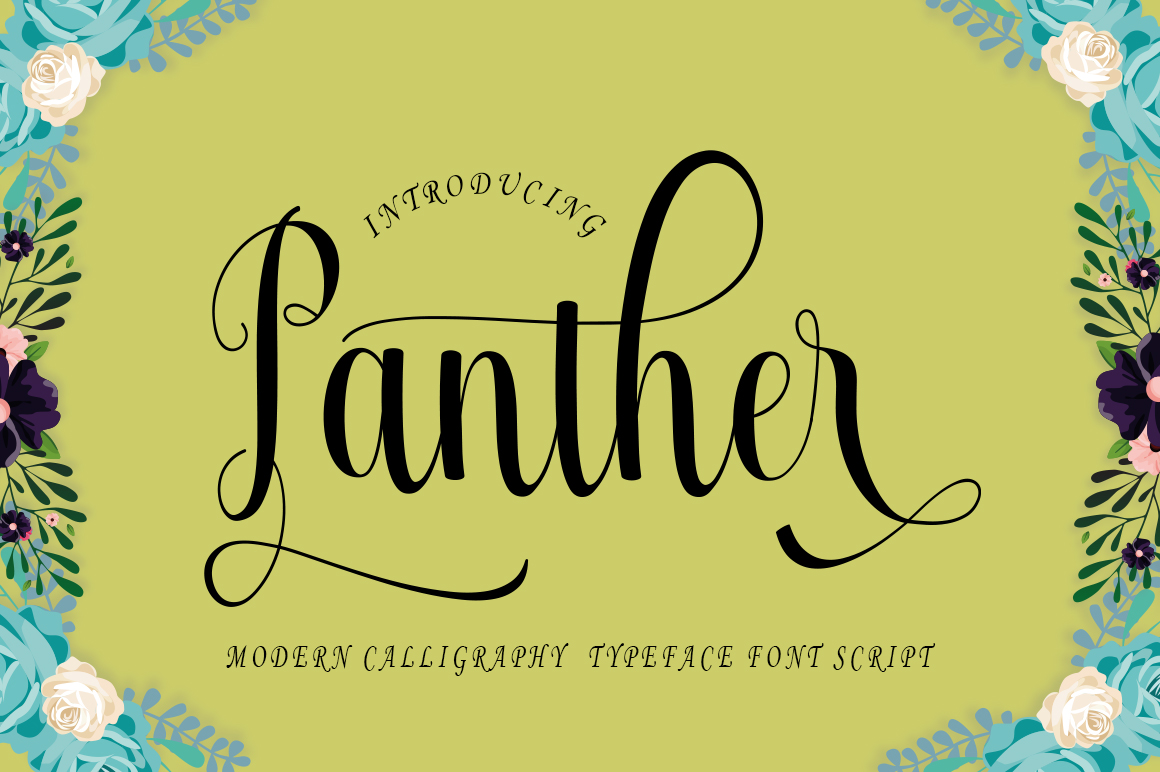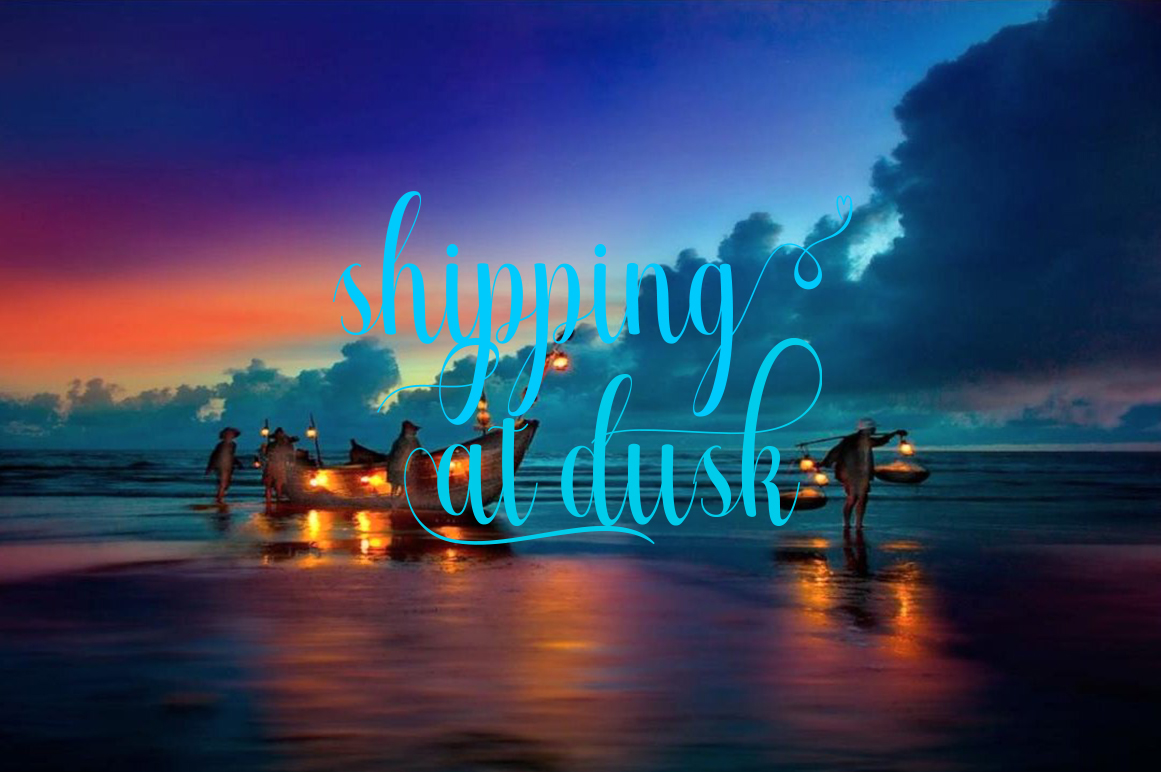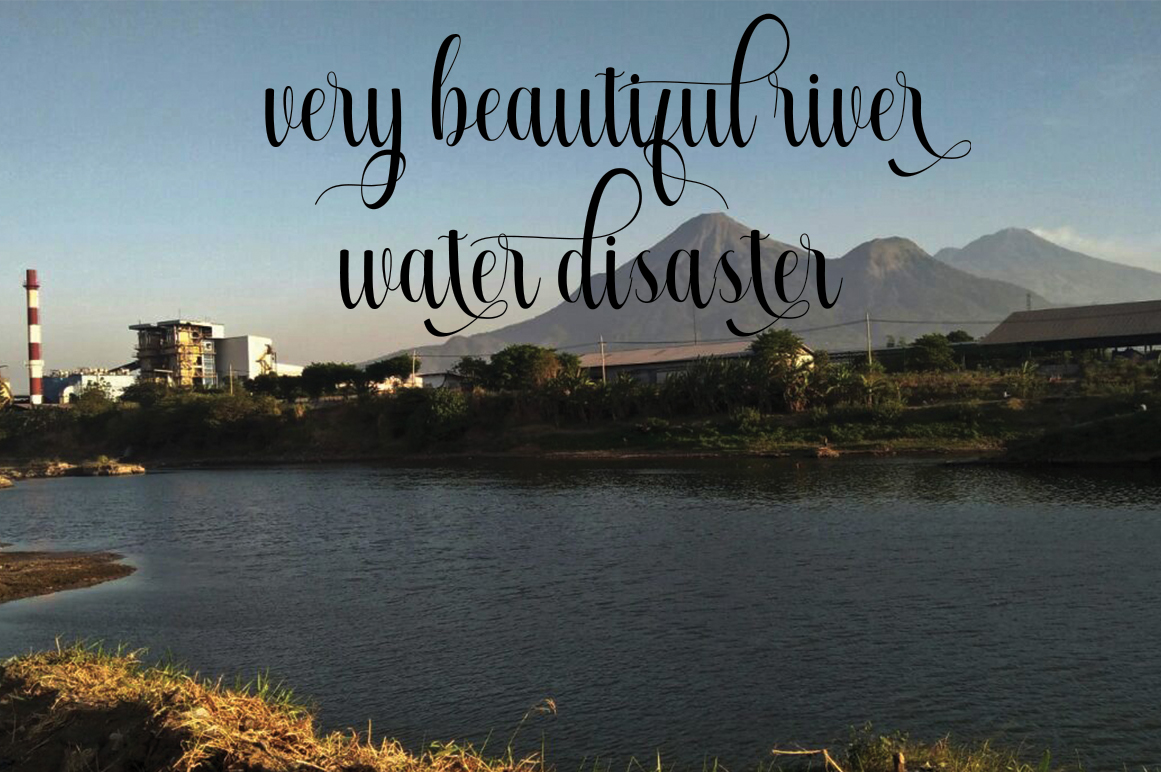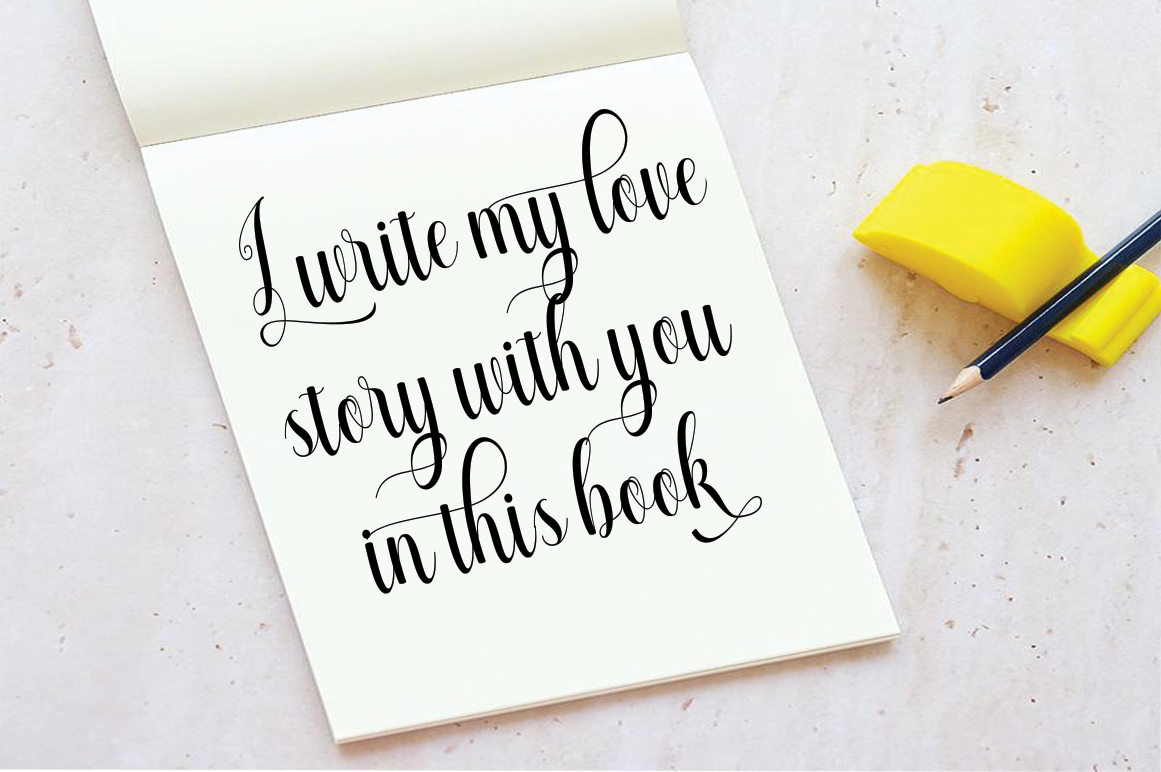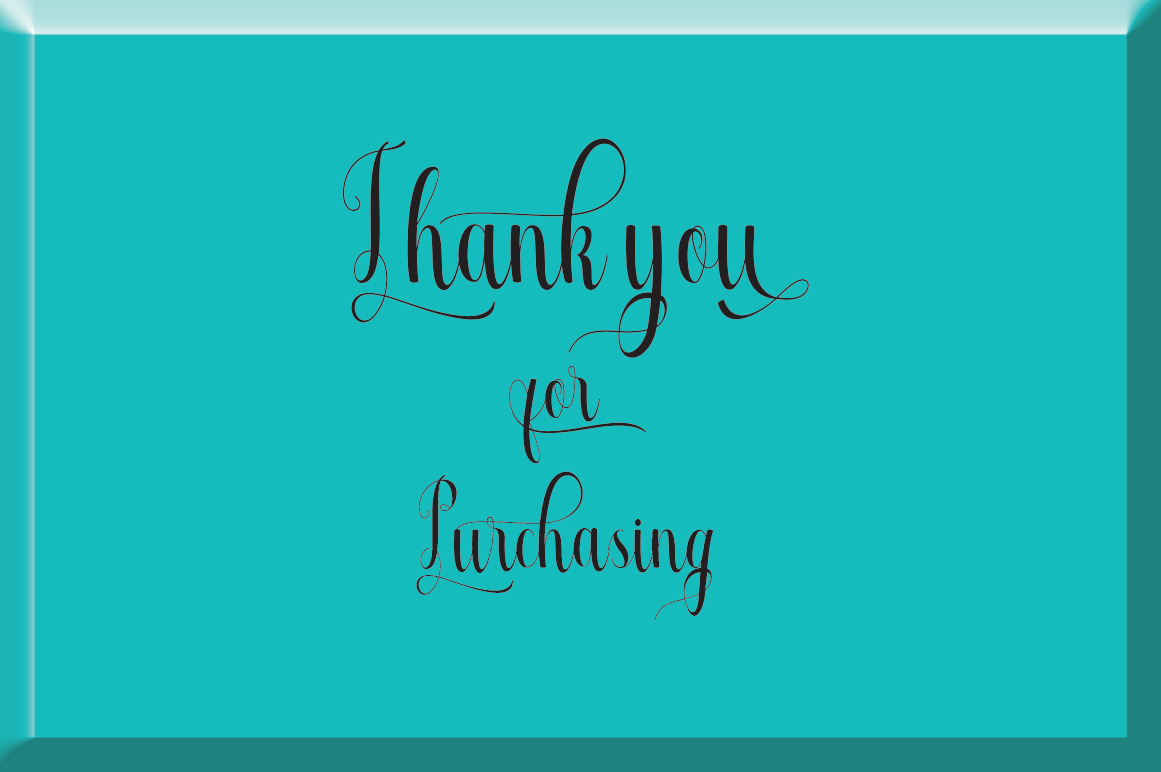
Panther Font
About Panther Font
Panther is a gorgeous and romantic modern script font with high impact contrast and style. This font features an array of characters that have been carefully crafted to make your typographic elements look beautiful with a ton of alternates and ligature options.